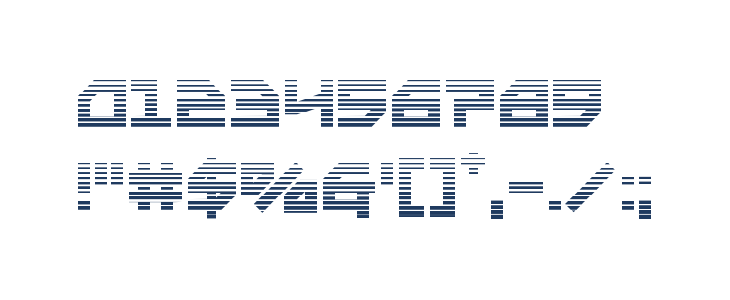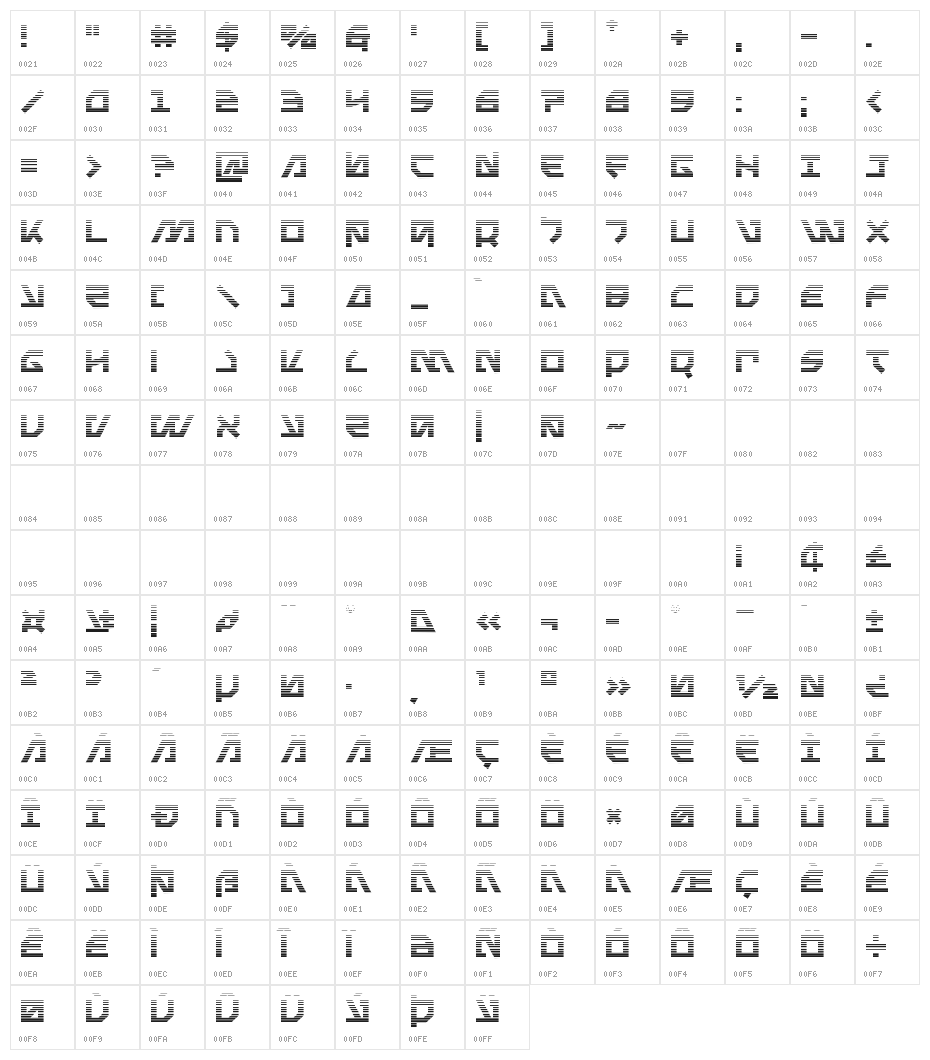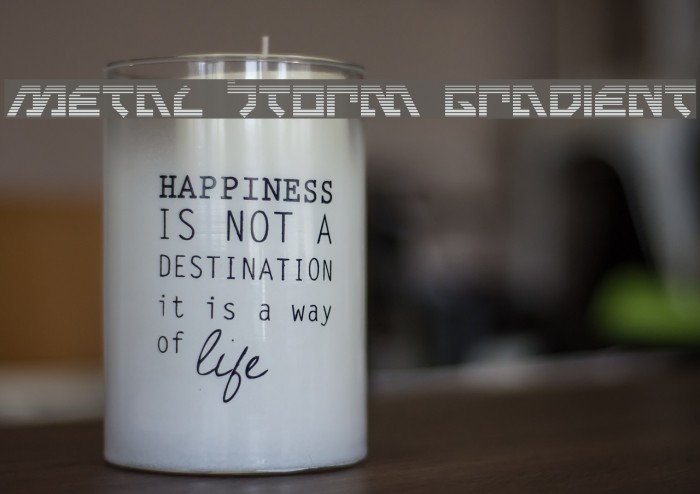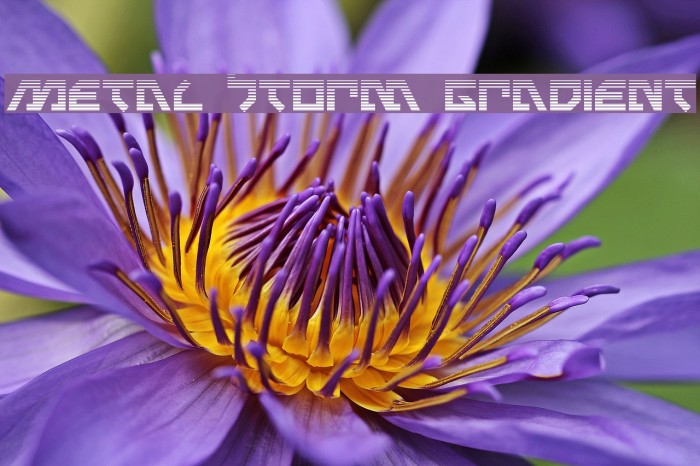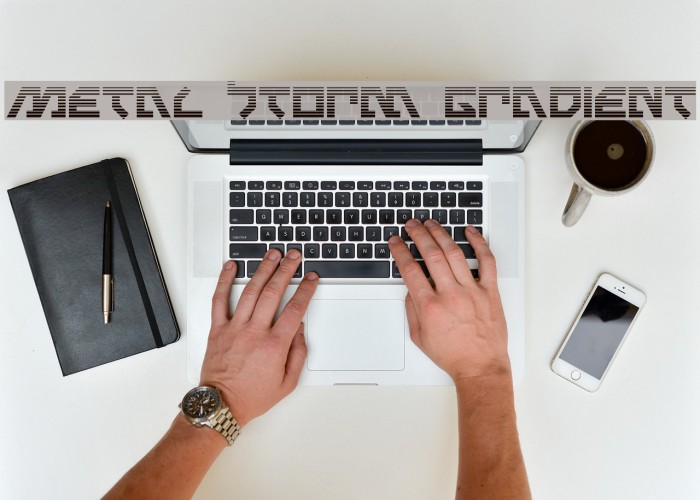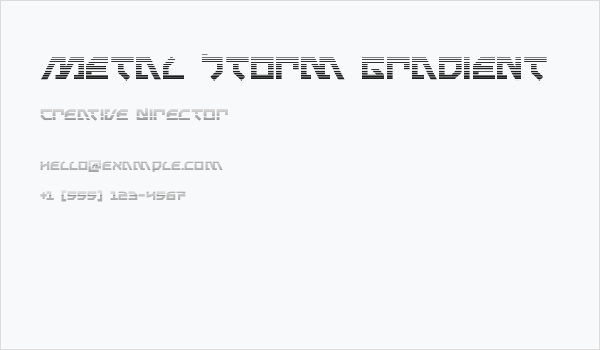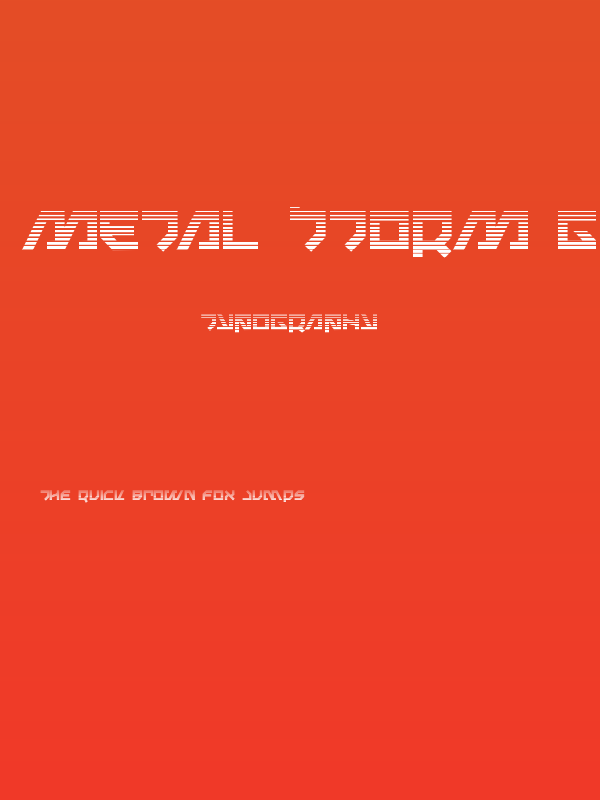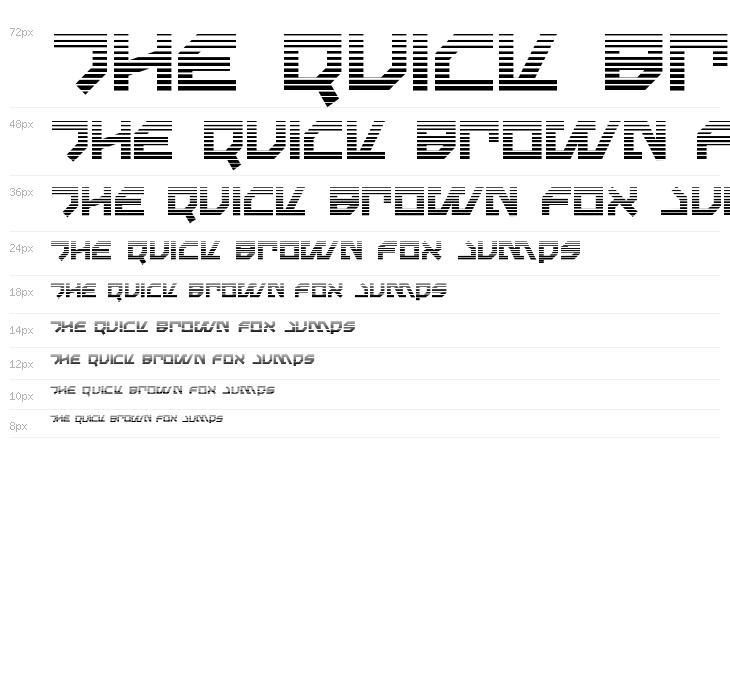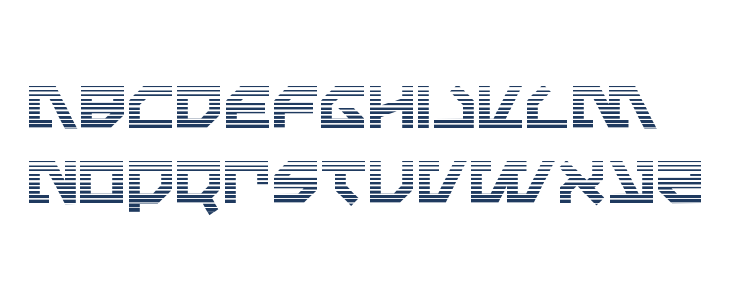
Metal Storm Gradient Font
Metal Storm Gradient Description
This font features a bold, futuristic design with a distinct horizontal stripe pattern across each character. The geometric shapes and sharp angles give it a mechanical and industrial feel, reminiscent of digital or sci-fi themes. Each letter and number is constructed with precision, maintaining a consistent width and height, which enhances its uniformity and readability. The special characters are designed to match the overall aesthetic, making it suitable for cohesive design projects. The font's unique style makes it stand out, ideal for creating a strong visual impact.
| Overall Style | Futuristic, Industrial |
| Proposed Projects | Ideal for sci-fi themed projects, video game titles, tech branding, and futuristic posters. |